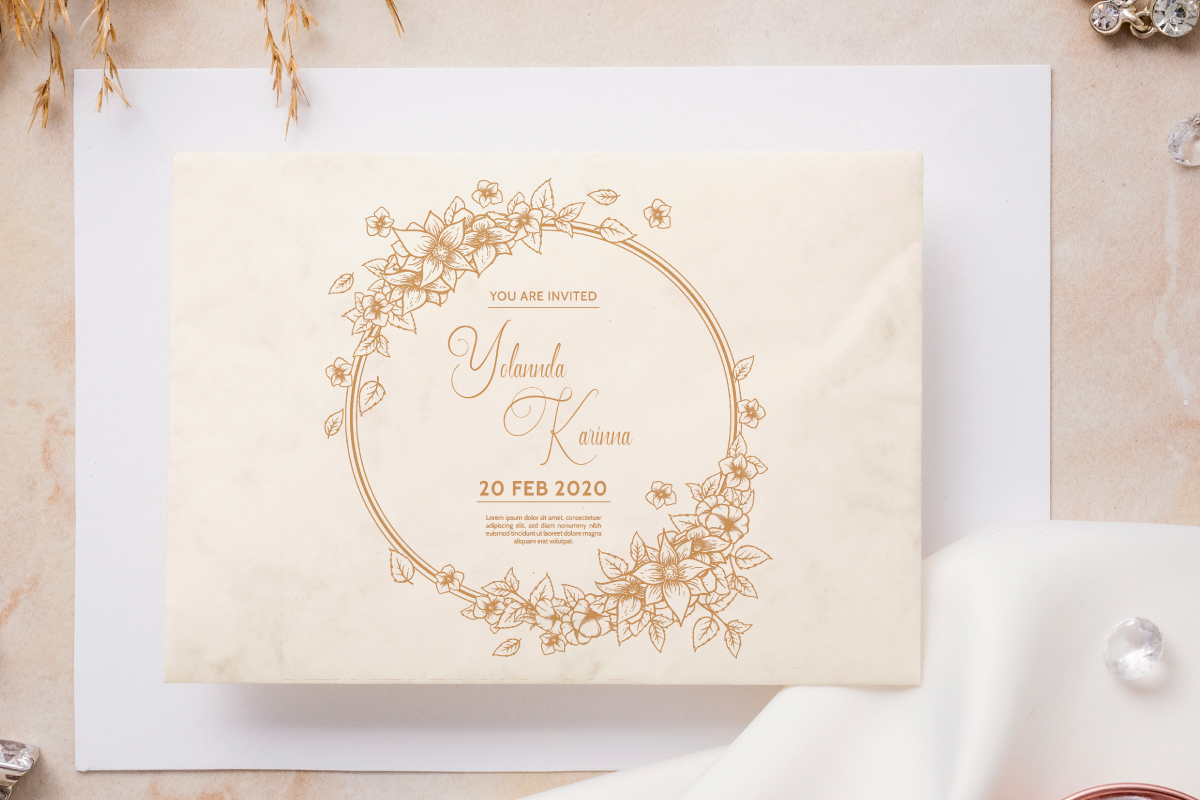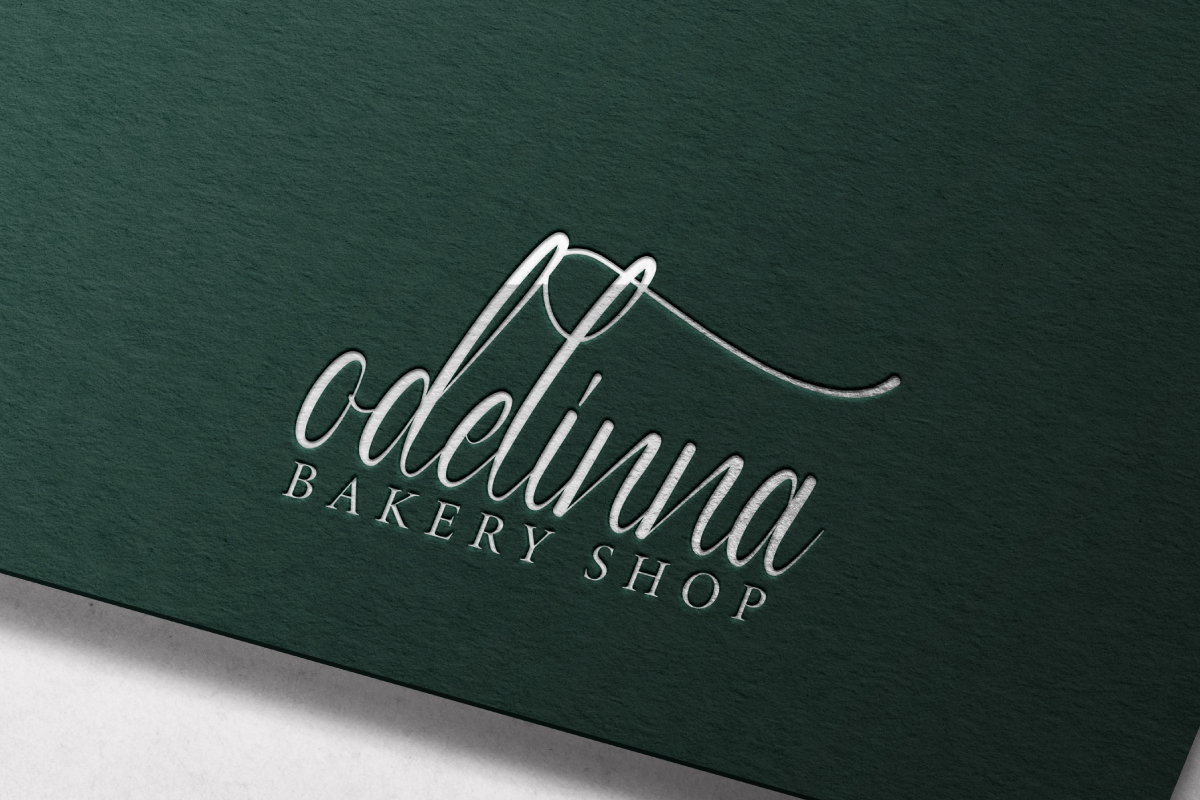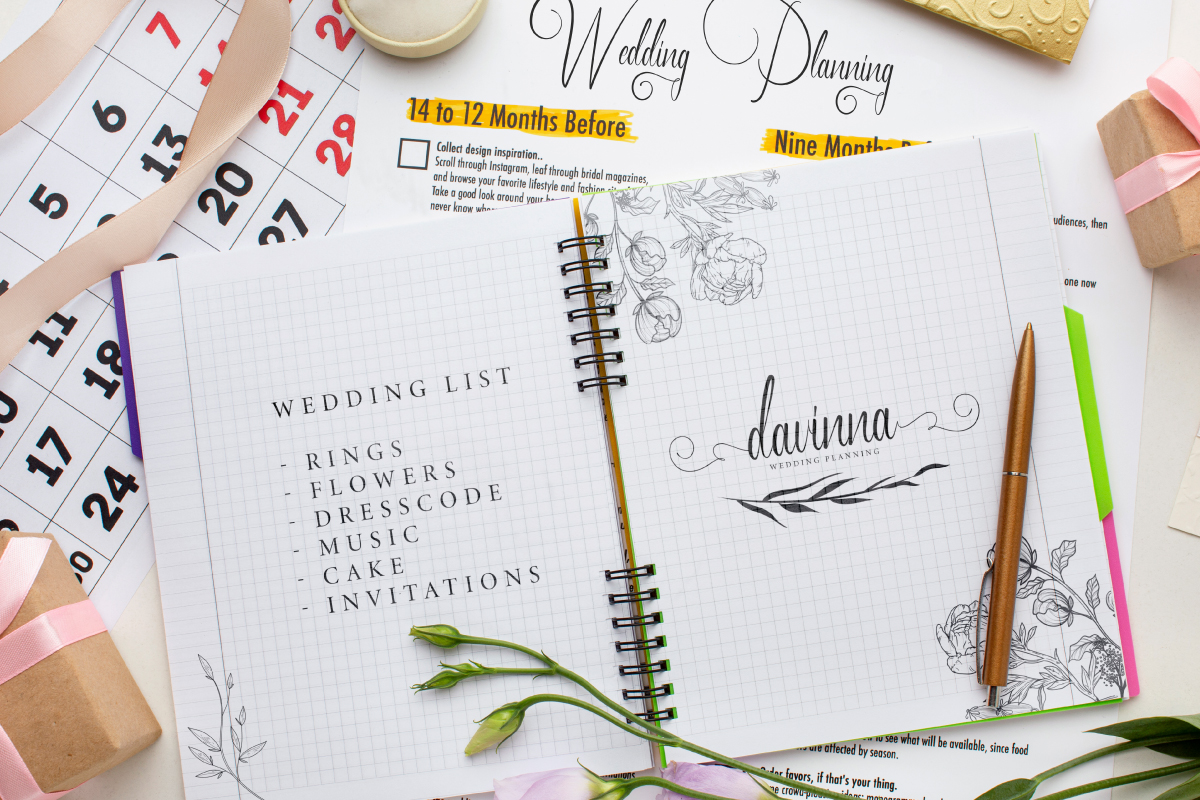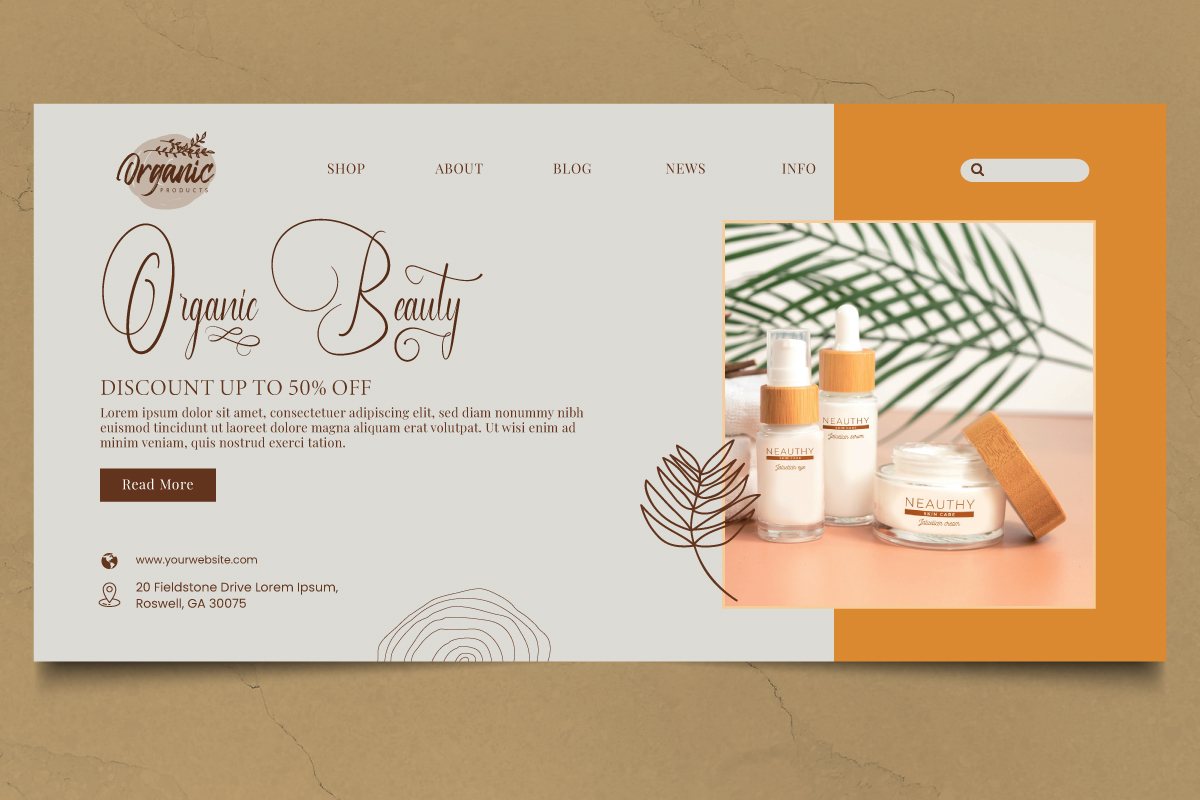
Danillous Font
Danillous Calligraphy Font
This font will be great for any projects including : invitation, logo branding, products packaging, signage, stationery, etc. This font comes with a full set of characters, upper and lower case letters, numbers and punctuations. Also the luxurious and exclusive ligature and swoosh character that makes it stand out.